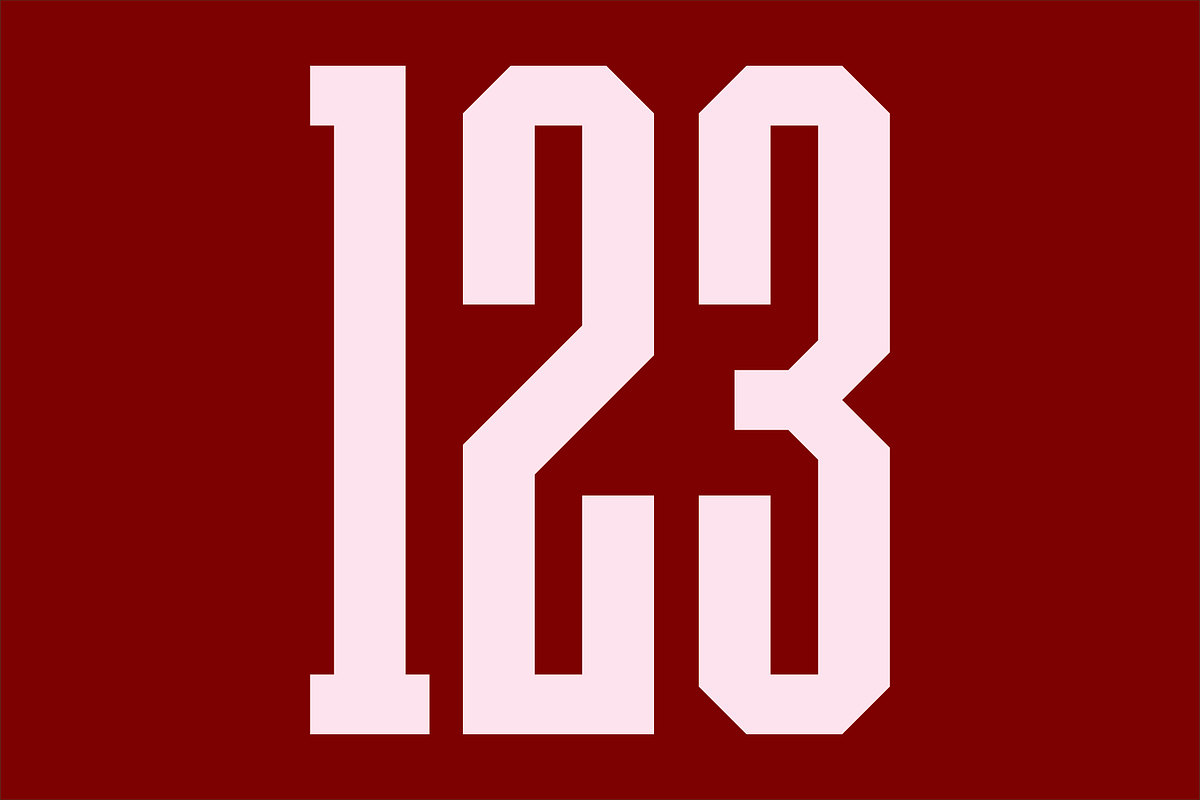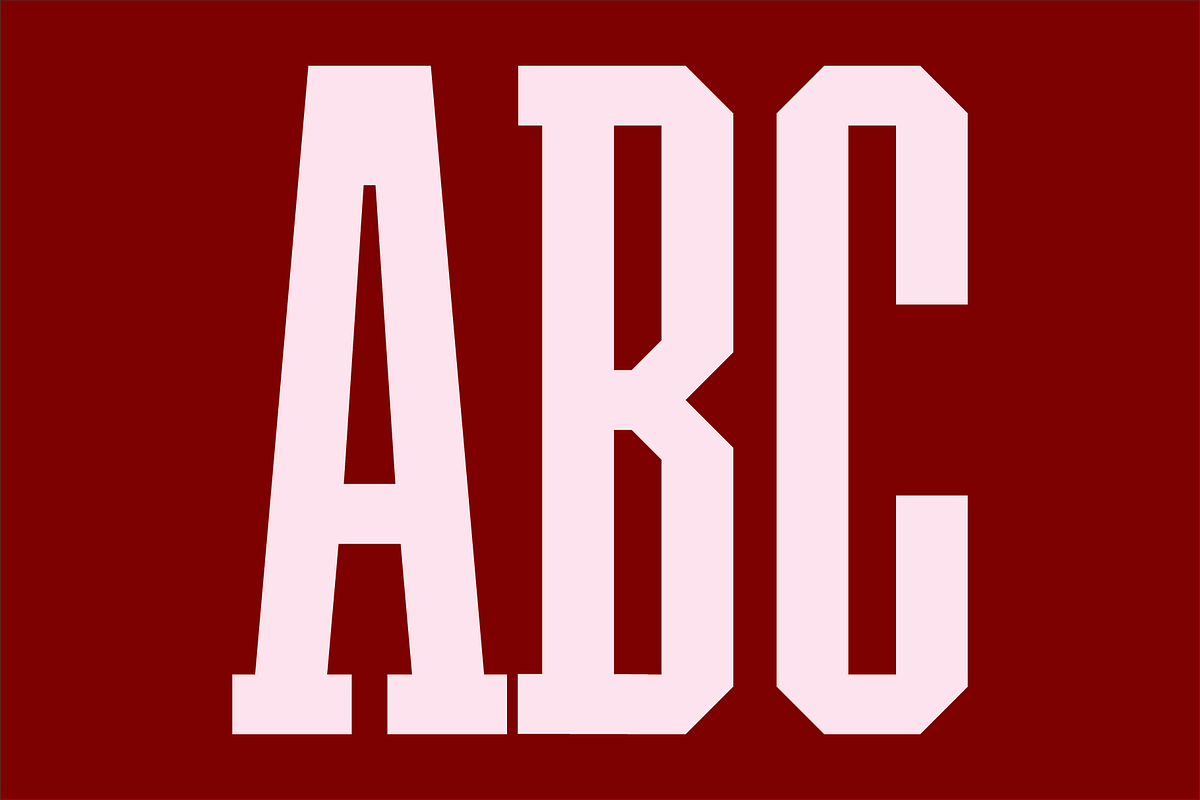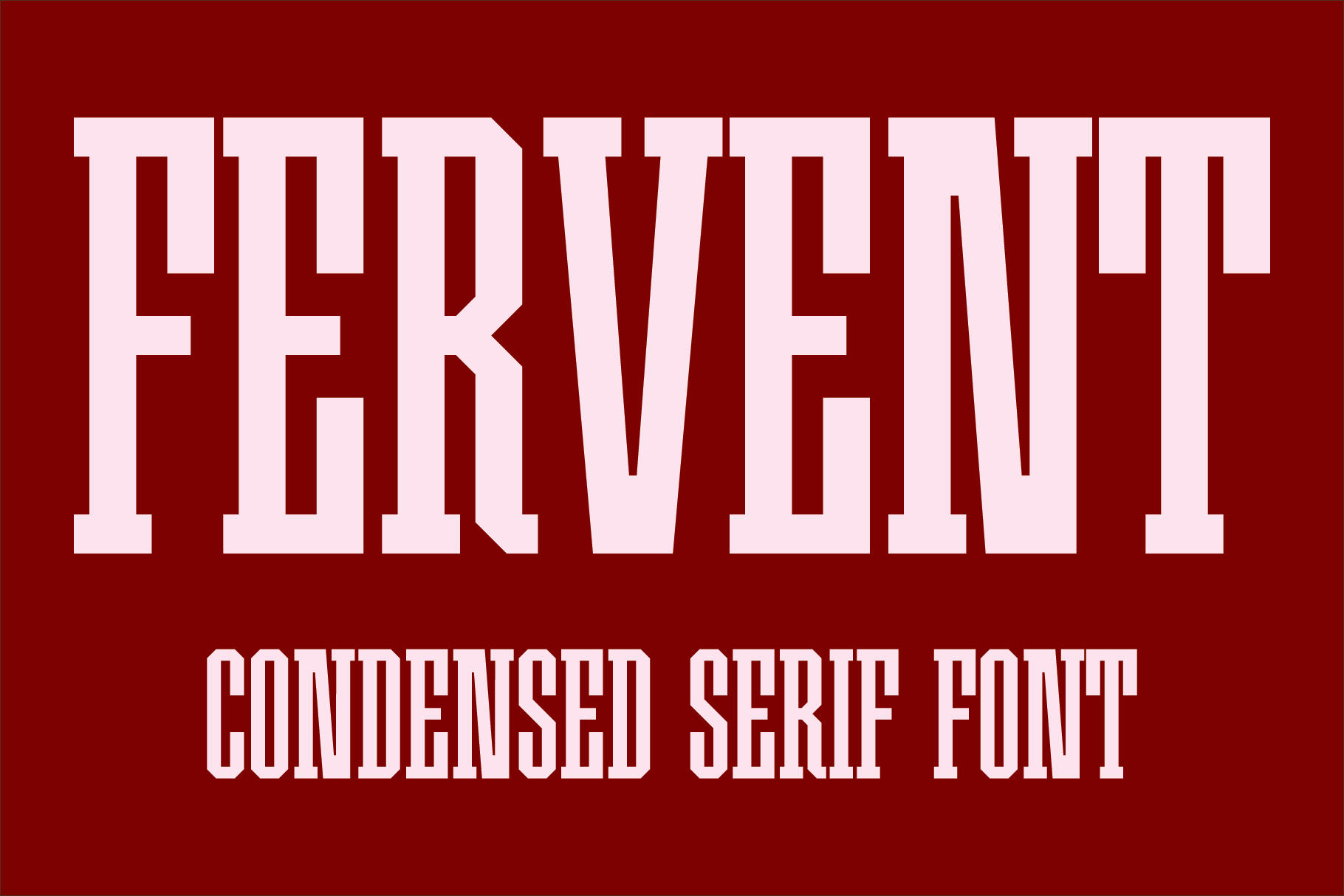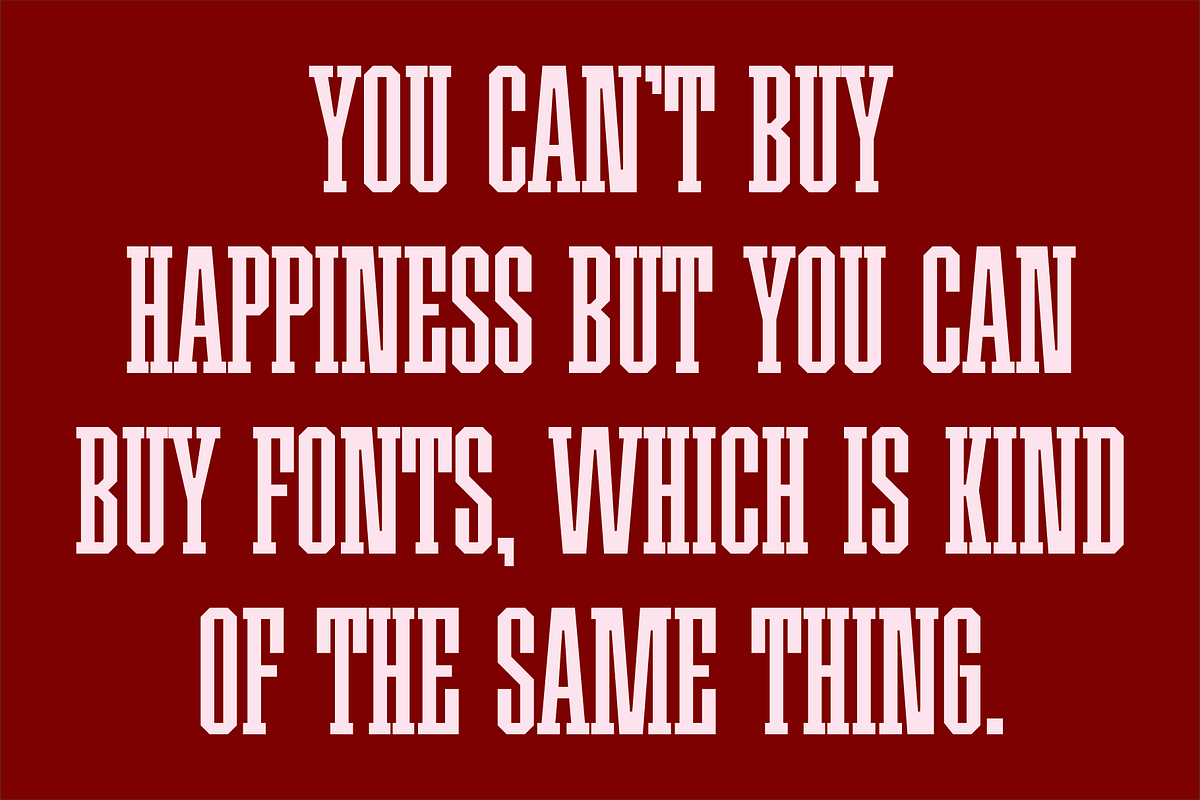
Fervent - Condensed Serif Font
Fervent is an all caps ultra condensed serif font. It is ideal for headlines, titles, branding and small blocks of text.